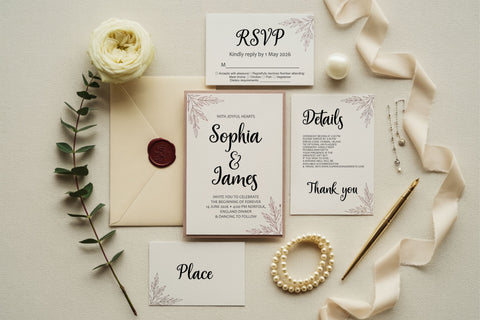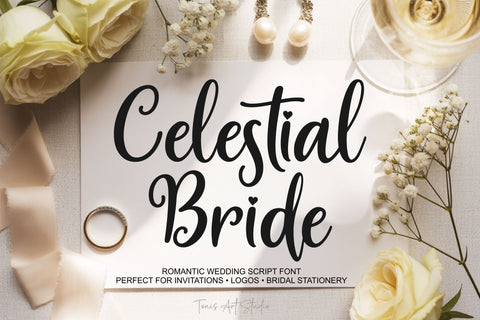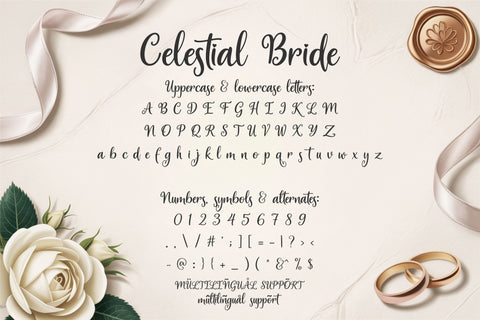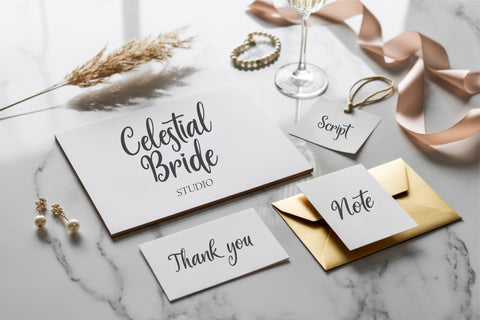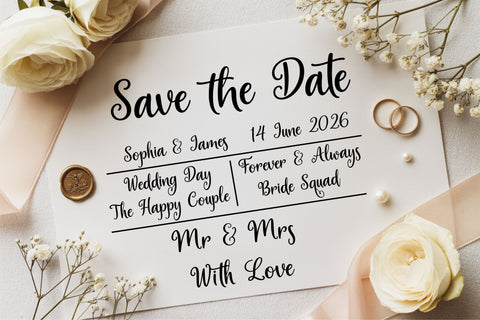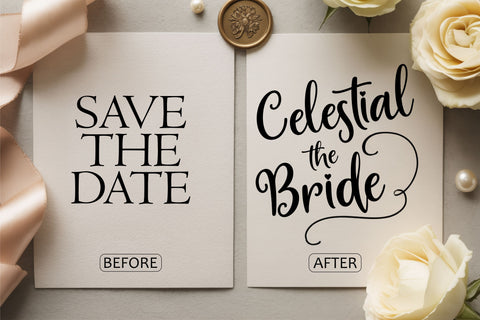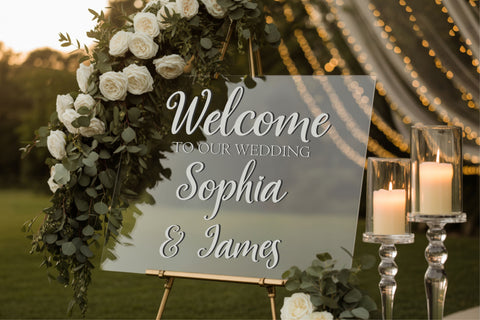
Celestial Bride Font – Romantic Wedding Script for Invitations, Logos & Elegant Bridal Branding
Celestial Bride, an enchanting wedding script font is akin to a love sonnet, draped in timelessness. Its sophisticated interplay of elegant swirls and gentle handwriting imparts a touch of warmth and sentiment to every word. It is an ultimate choice for brides, wedding organizers, and creative enthusiasts seeking a touch of luxury, personalized approach, and memorable impact in their designs.
From designing wedding invitations, save-the-dates, vow books, table identifiers, event placards, to menus and bridal shower adornments, and even contemporary wedding logos, Celestial Bride seamlessly infuses the wistful forever sentiment without any ostentatious display. This font uplifts your design to a level of refinement that exudes posh yet poised vibe, making it print-ready and perfectly suitable for minimalist weddings, romantic themes, upscale stationery, and stylish branding.
But it doesn't stop here. Celestial Bride also breathes life into small business branding and boutique logos. Whether it's photography watermarks, beauty salon branding, wedding vendor signature styles, product packaging, or soft-toned social media quotes, this font adds a whisper of luxury to them all.
Best suited for:
• Wedding invitations and stationery
• Save the date cards and RSVPs
• Bridal shower and engagement party decoration
• Wedding signages, menus, seating charts
• Monograms, logos, branding, and watermarks
• DIY projects and printable decor
Celestial Bride is designed to feel like a whisper, a promise, and a forever—it’s invariably special, much like the moments it enhances.